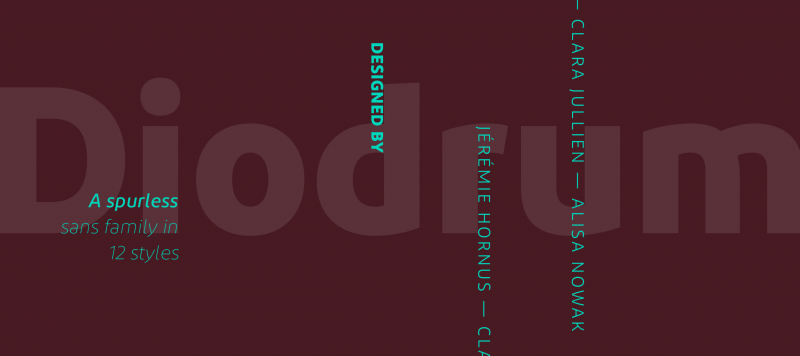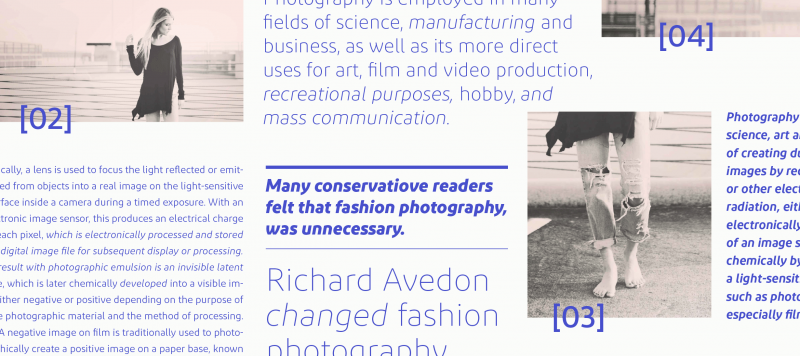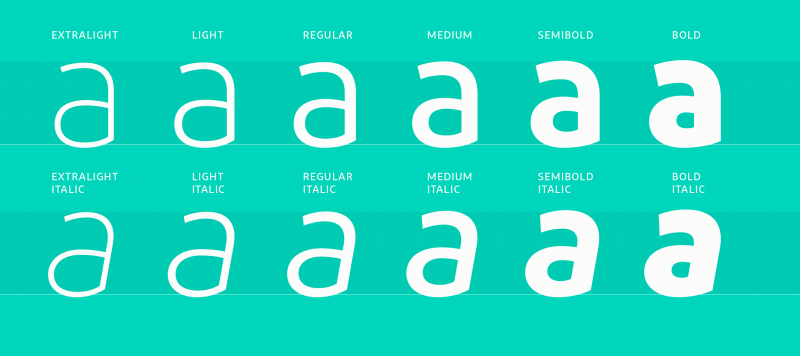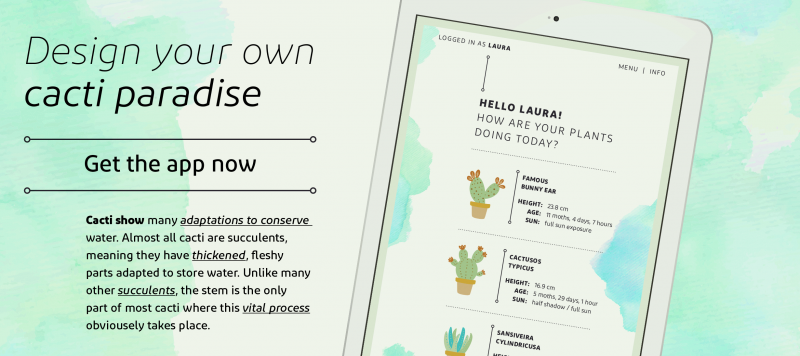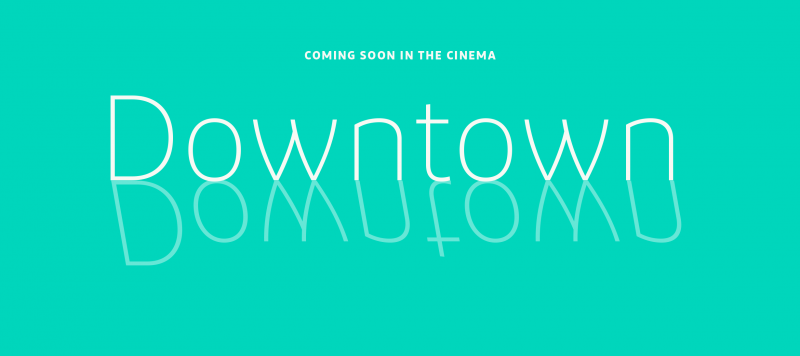
Diodrum is a spurless sans family for the Latin script. ‘Spurless’ typefaces feature smooth transitions from letters’ stems into their curved strokes. The design is generally monolinear. Diodrum’s x-height has is tall, and its counterforms are large and open. Instead of their being drawn with straight lines, Diodrum’s diagonals swell outward. This gives letters with prominent diagonals an increased dynamism. The Diodrum typeface appears friendly & legible and is available in six weights; the lightest of which is an ExtraLight font – a unique addition to our library. Due of its multiple weights, versatile range, and formal style, Diodrum is an excellent choice for usage in Corporate Design and UI/UX Design applications. The Diodrum family was designed by Jérémie Hornus, Clara Jullien, and Alisa Nowak – an international trio of designers based in Paris, France.
Family Name Diodrum
Designer(s) Alisa Nowak, Clara Jullien, Jérémie Hornus
Classification Sans